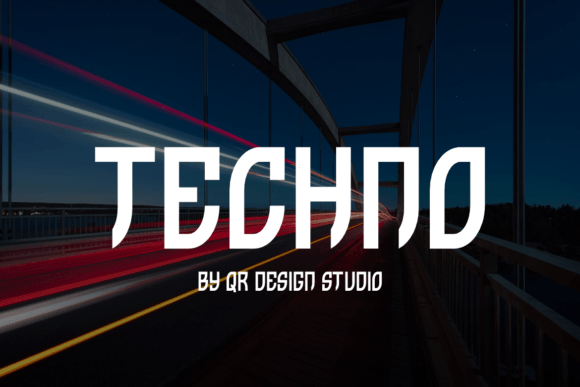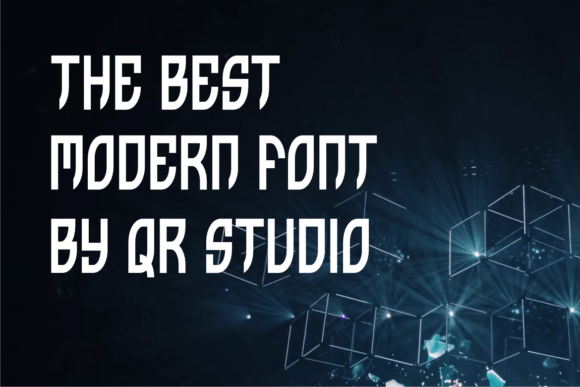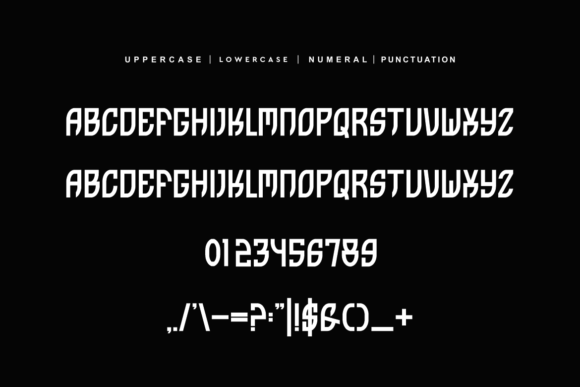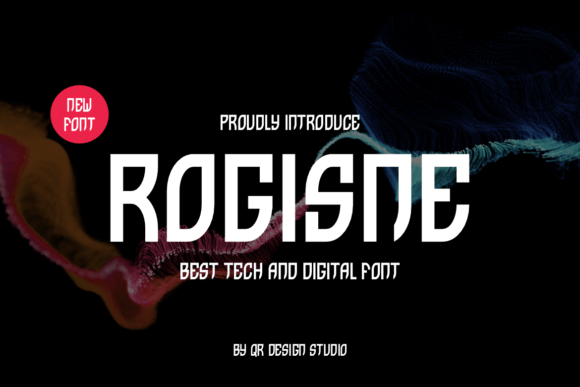
Introduction to Rogisne Font
Rogisne is a unique and interesting sans serif font.
A little bit quirky, this font looks incredibly adept on a wide variety of contexts .
Key Features of Rogisne Font
Why Choose Rogisne Font?
Rogisne Font offers exceptional quality and versatility, making it a valuable addition to your design toolkit. Whether you’re creating for personal projects or commercial use, Rogisne Font delivers professional results.